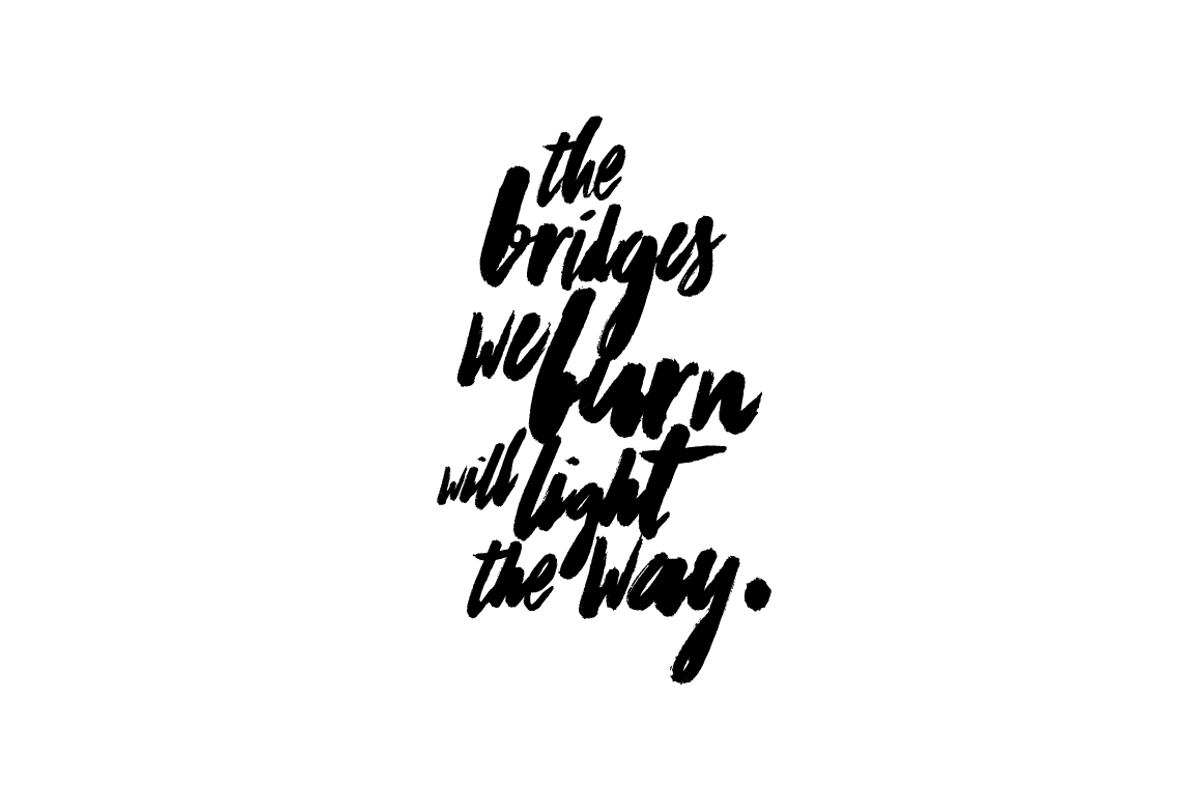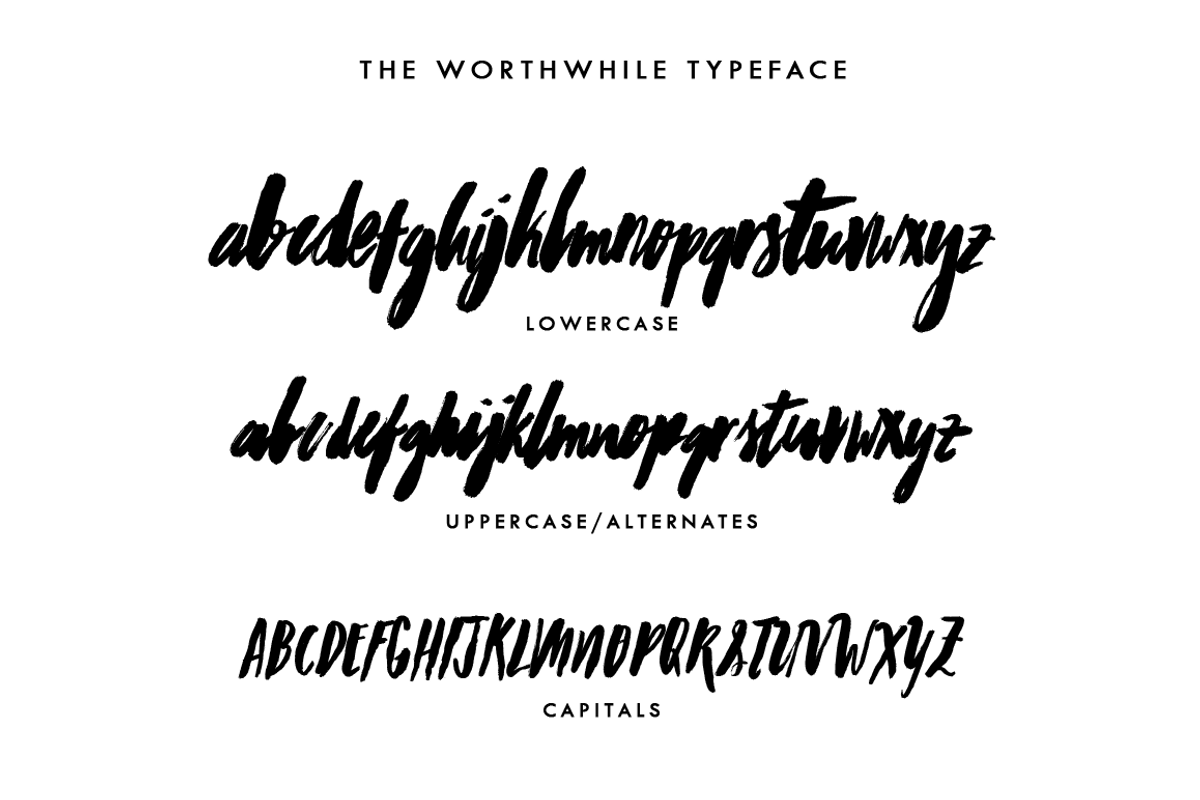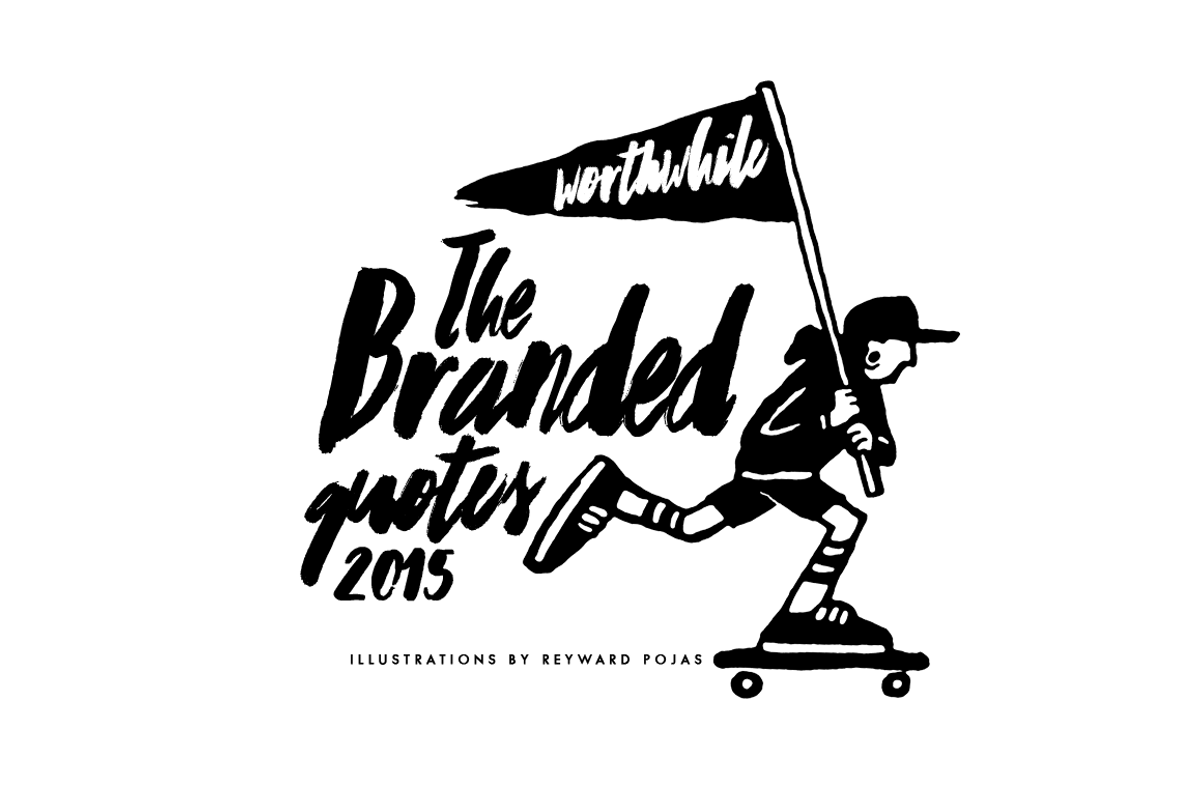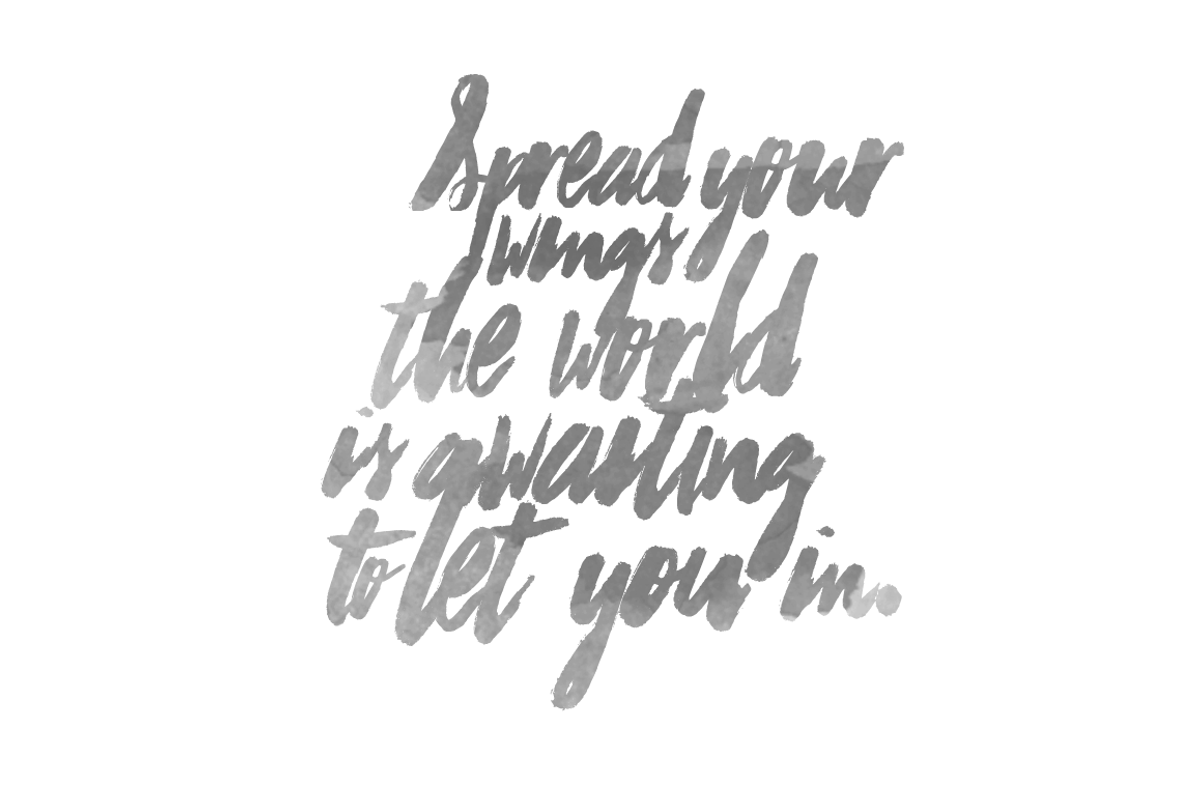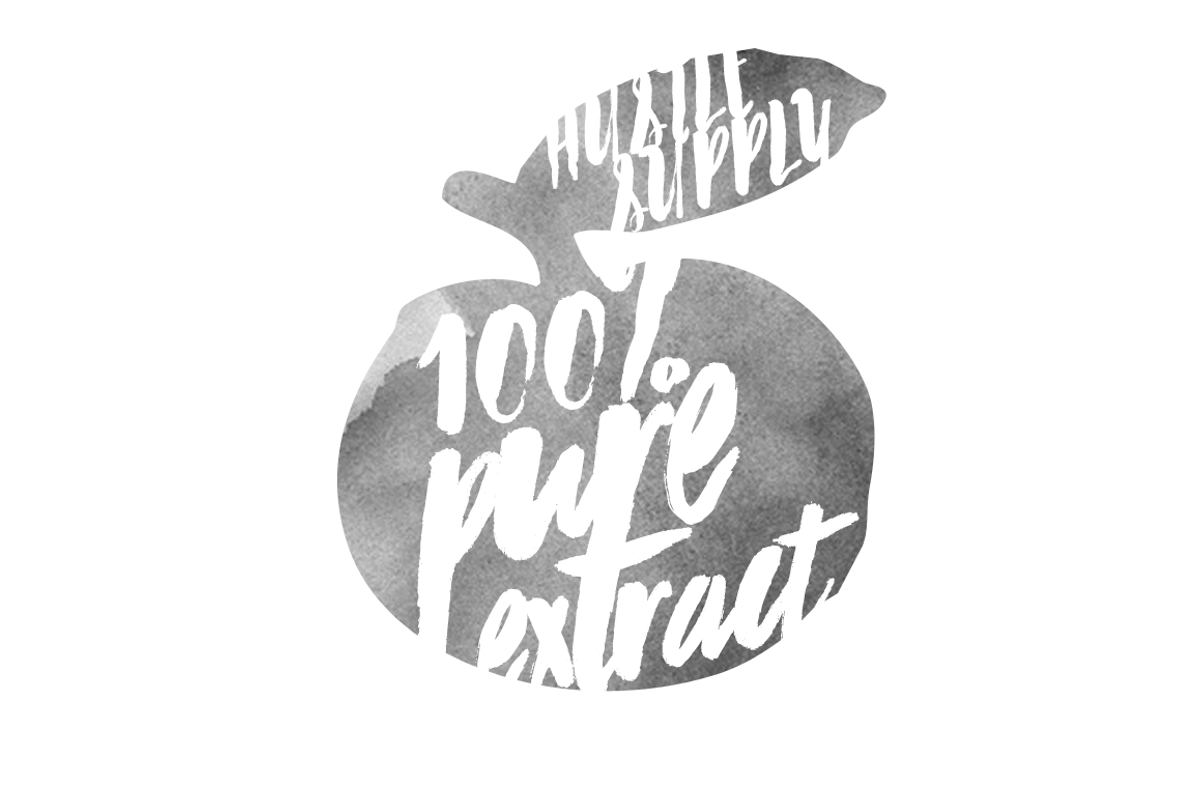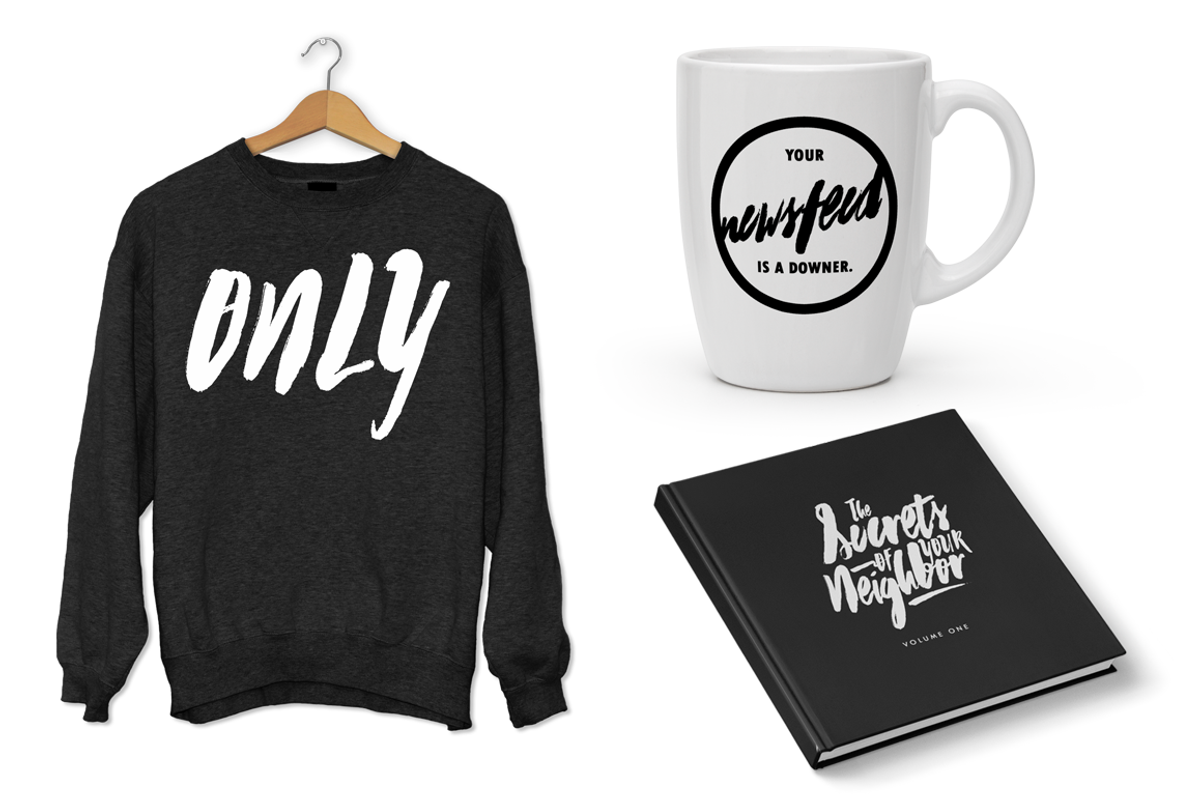
Worthwhile Font
Worthwhile Font by The Branded Quotes is a font selected for branding, posters, packaging, typography.
- Worthwhile Regular - Includes the Capitals, Lowercase, Punctuation and Alternates.
- Worthwhile Alternates - Lowercase plus the Alternates which can easily be accessed in the Uppercase mode (or hold/release Shift while typing
Worthwhile Font by The Branded Quotes fits naturally into Branding, posters, packaging, typography.